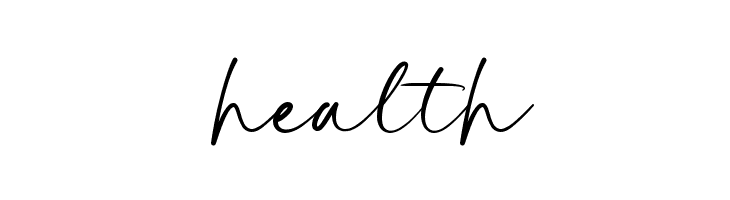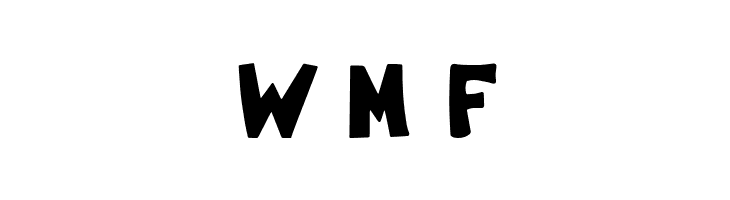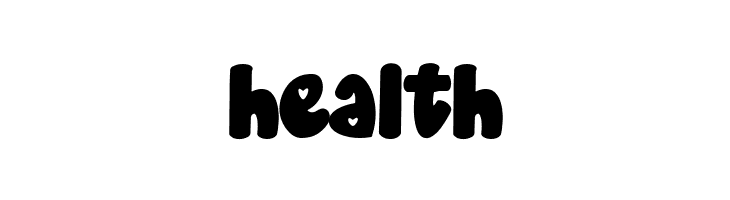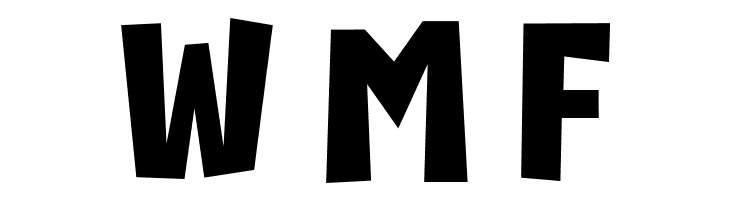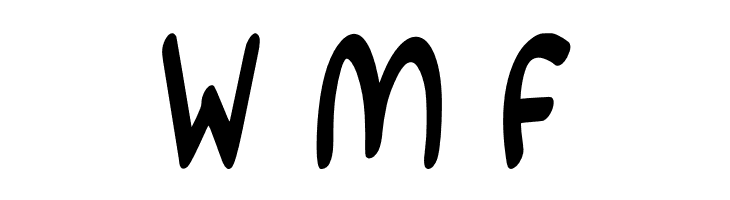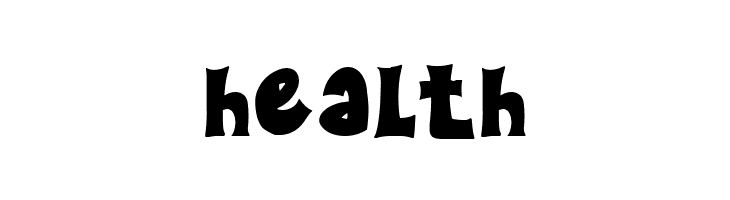
( Fonts by Subectype & Orenari )
A graceful, handwritten font with a fluid, cursive style.
( Fonts by Wildan Type )
A playful, hand-drawn font with bold, rounded characters and a whimsical style.
( Fonts by MJType )
A bold, playful font with rounded, bubbly characters ideal for fun designs.
( Fonts by Lemonthe )
A cursive, handwritten-style font with elegant, flowing characters.
( Fonts by Timur Type )
A lively and dynamic handwritten font with fluid strokes.
( Fonts by Wildan Type )
A playful, hand-drawn font with bold, rounded characters and a whimsical style.
( Fonts by Wildan Type )
A playful, bold font with rounded characters and whimsical heart details.
( Fonts by Wildan Type )
( Fonts by Khurasan™ )
A bold, playful font with rounded, bubbly characters and a whimsical style.
( Fonts by Yumna Family )
A playful, bold font with rounded, smooth characters and a whimsical style.
A bold, playful font with a hand-drawn, textured style.
( Fonts by Wildan Type )
A bold, playful font with a hand-drawn, energetic style.
( Fonts by fsuarez913 )
A bold, rounded typeface with a playful and whimsical style.
( Fonts by Skiiller Studio )
A bold, playful font with thick, rounded strokes and a friendly appearance.
A bold, textured font with a hand-drawn, energetic style.